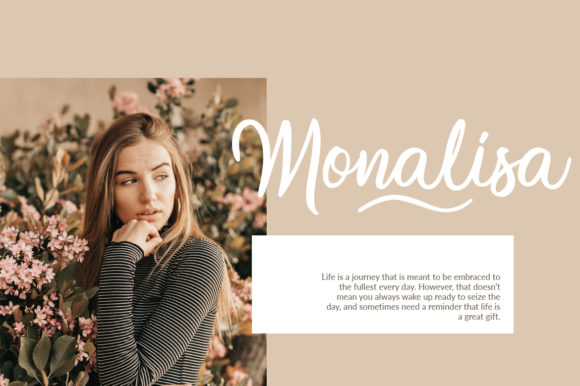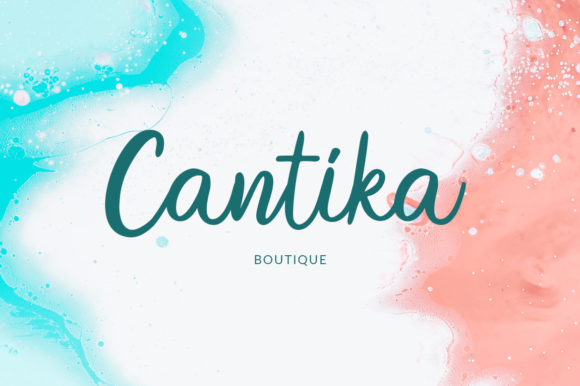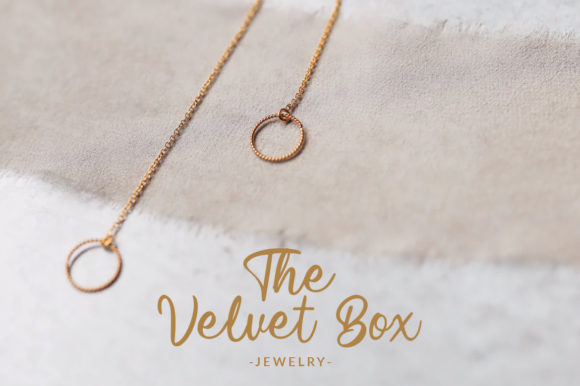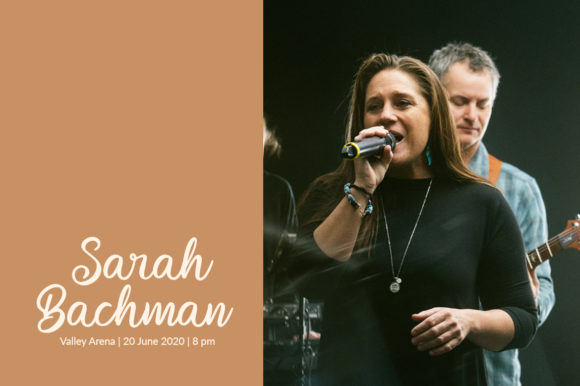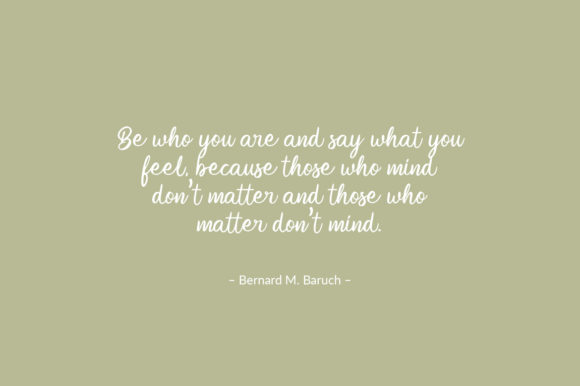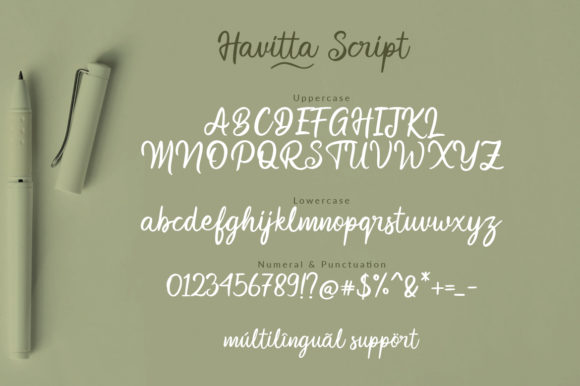
Introduction to Havitta Font
Havitta is a sweet and classy handwritten font.
Its well balanced arrangement of letters makes it adept to a wide variety of designs Fall in love with its incredibly versatile style and use it to create spectacular designs.
Key Features of Havitta Font